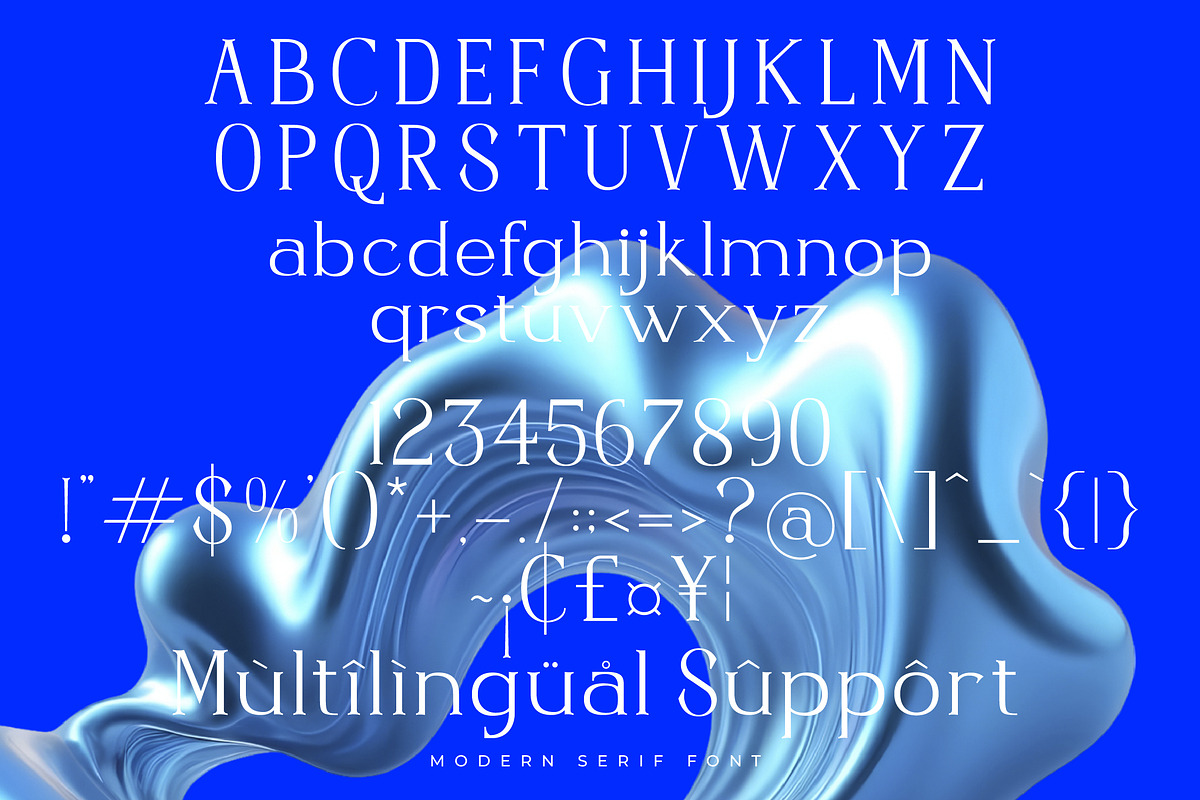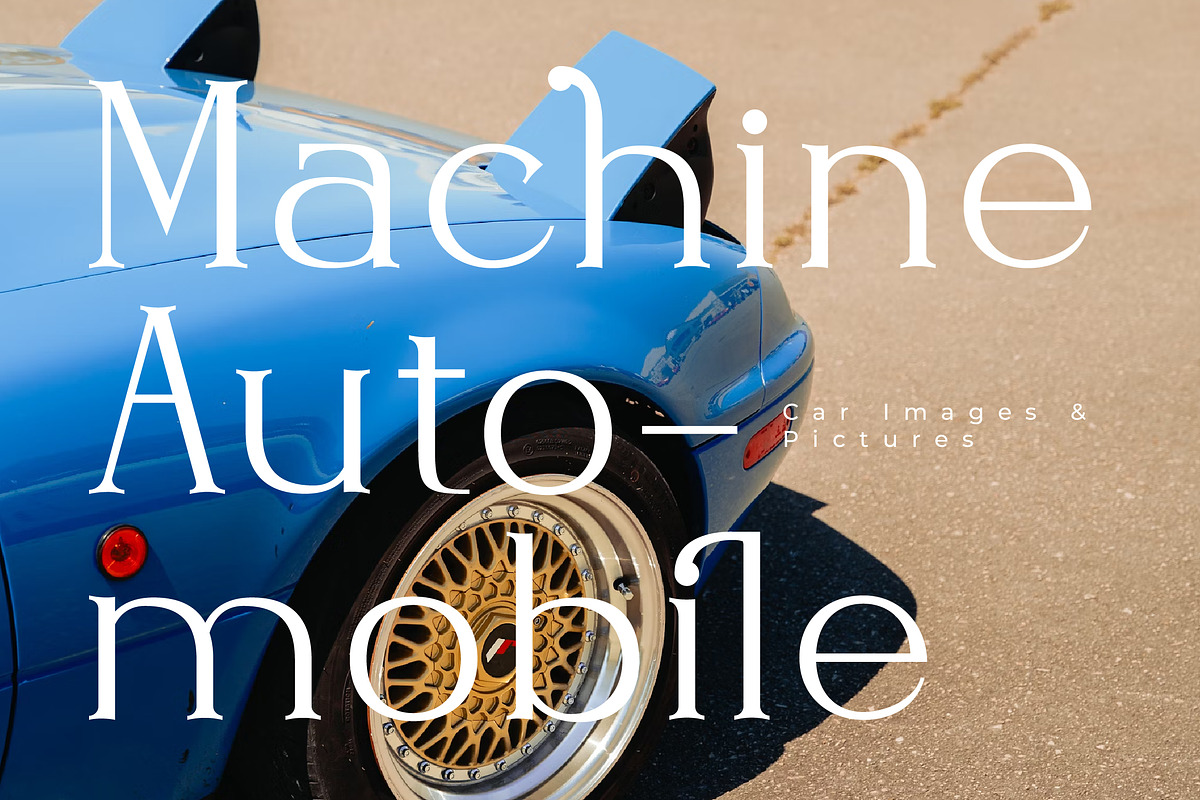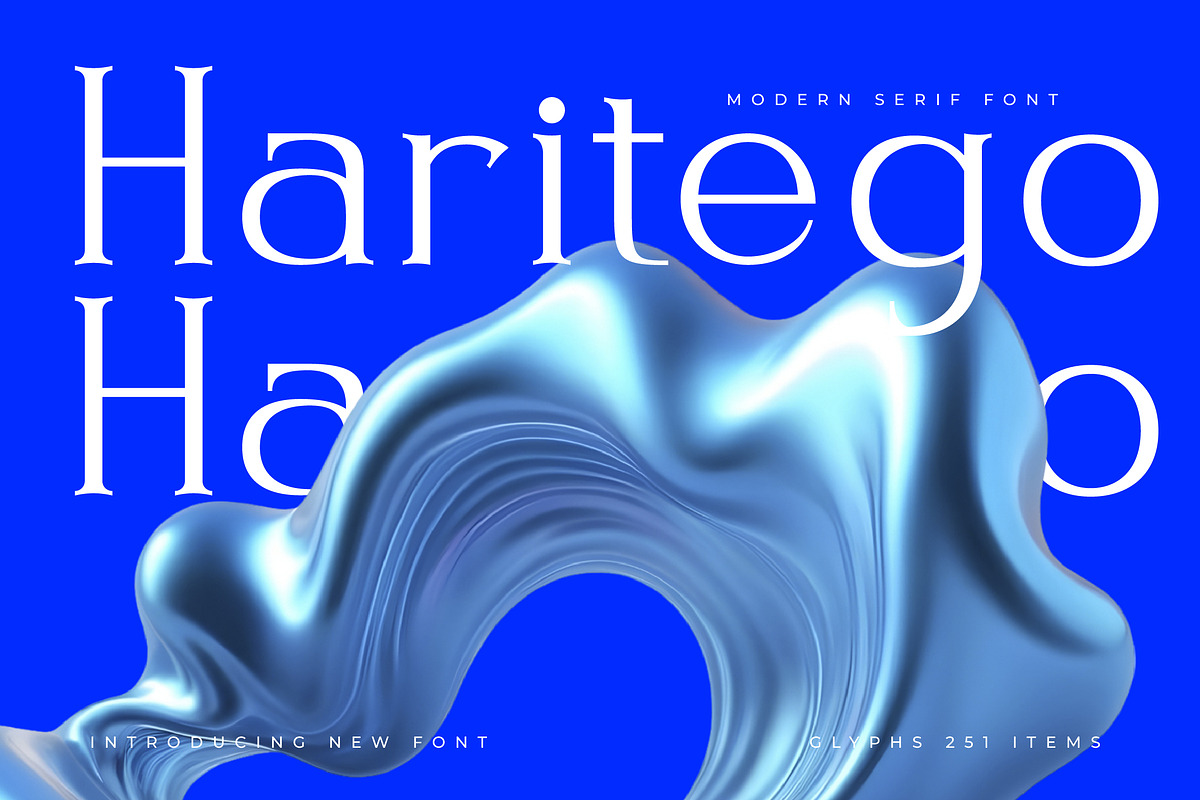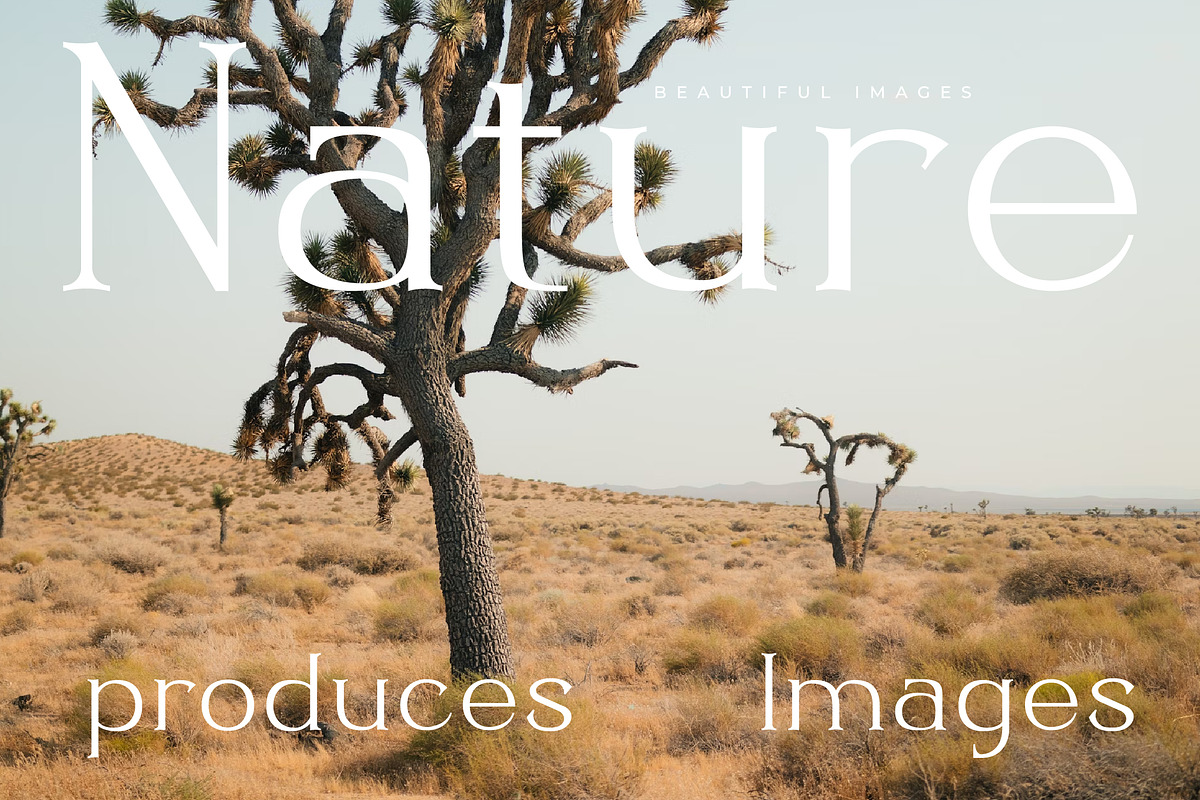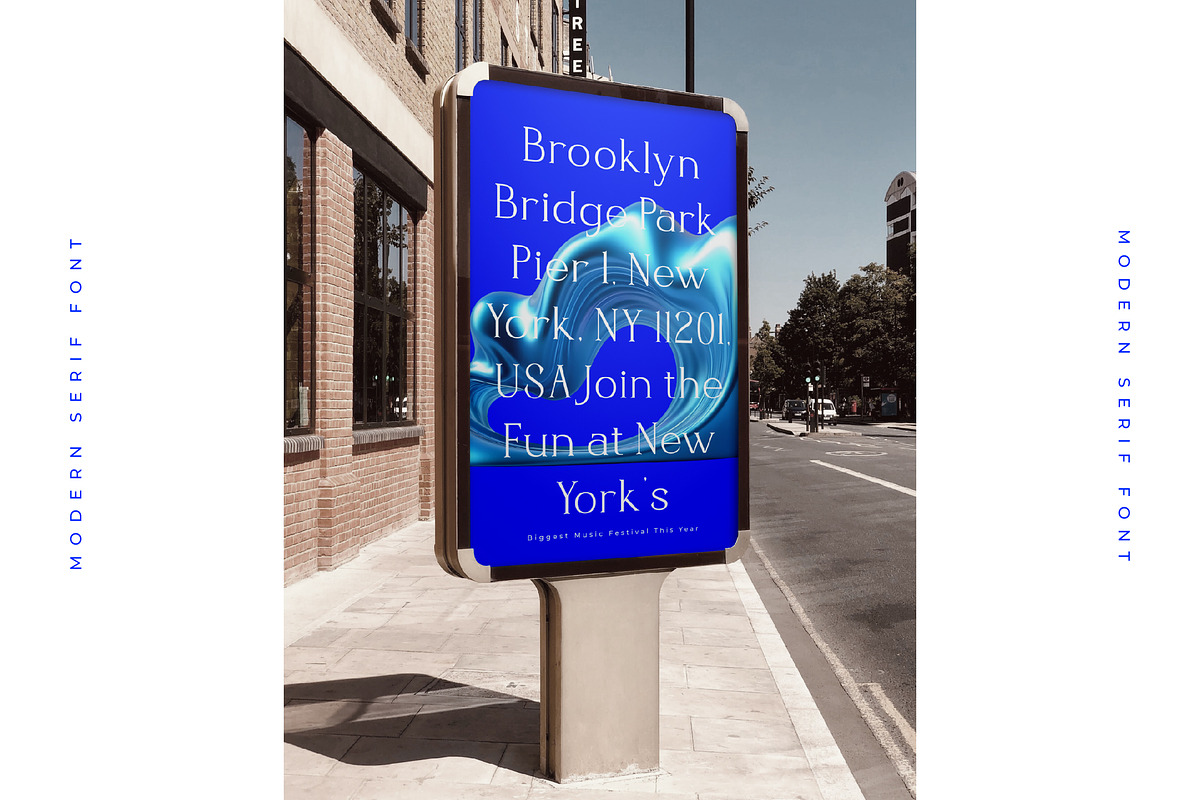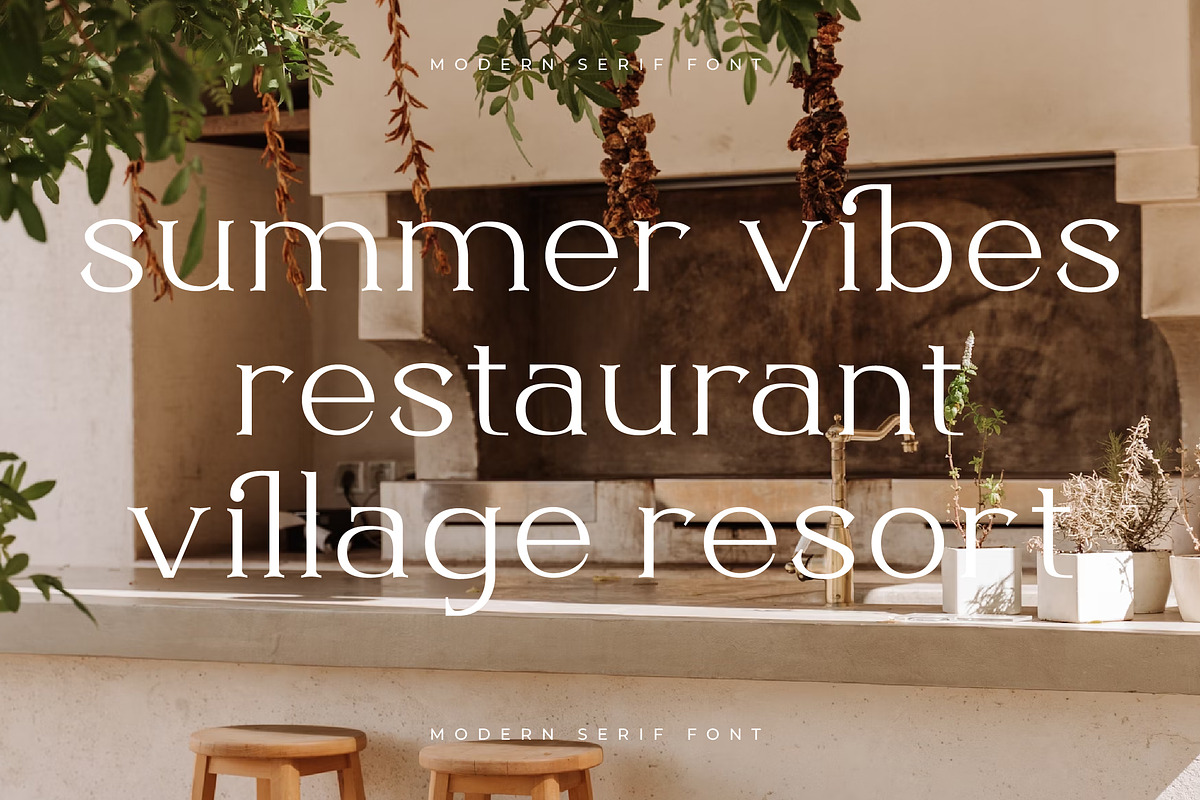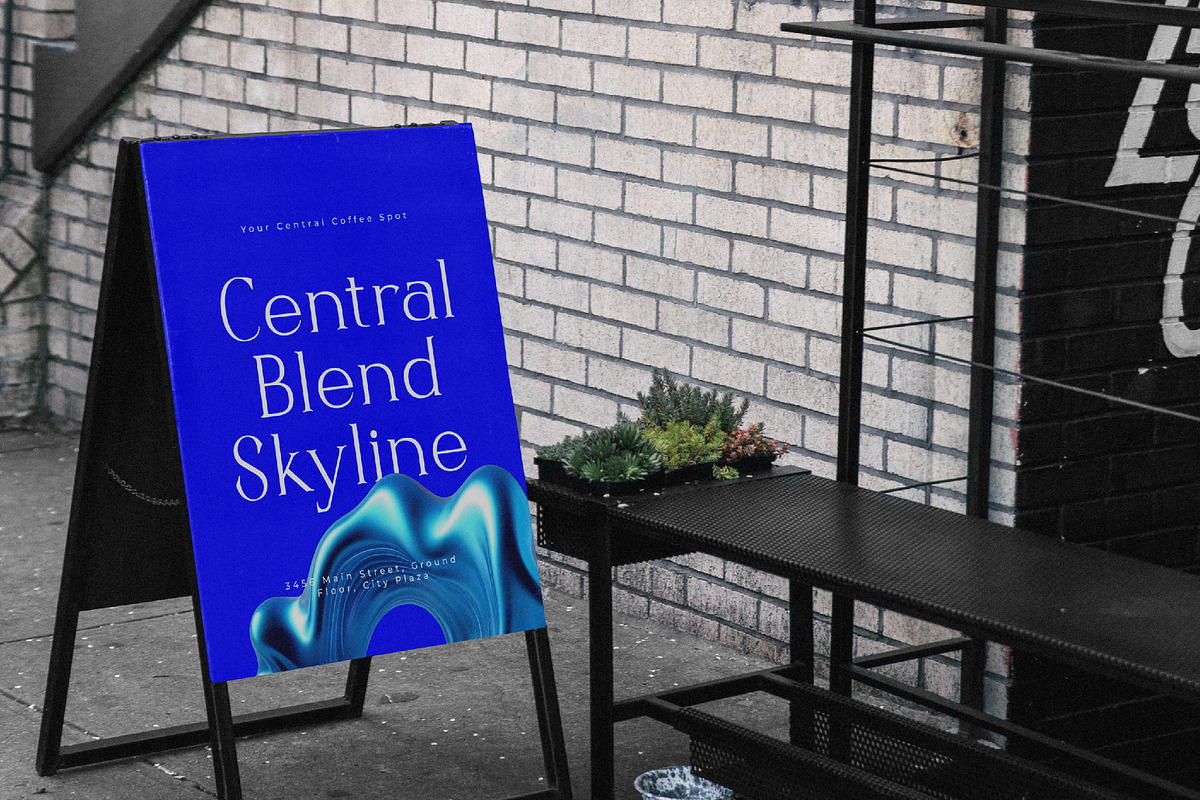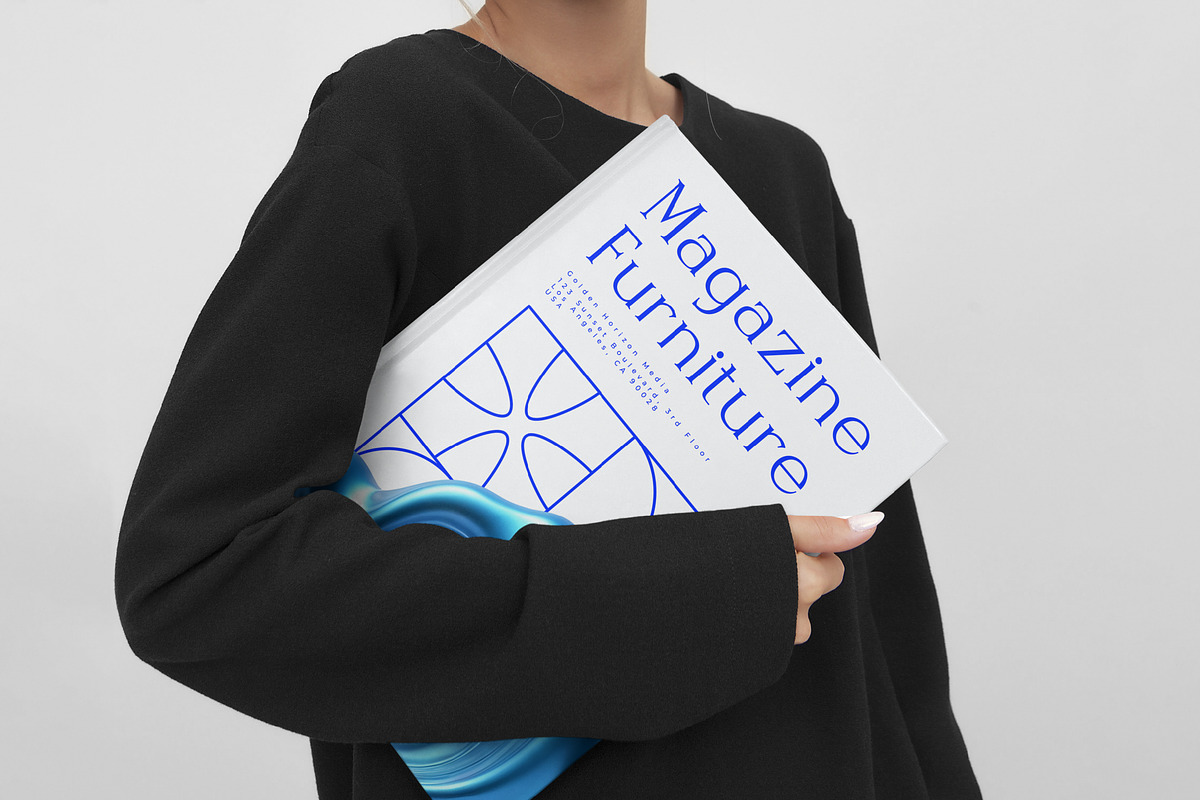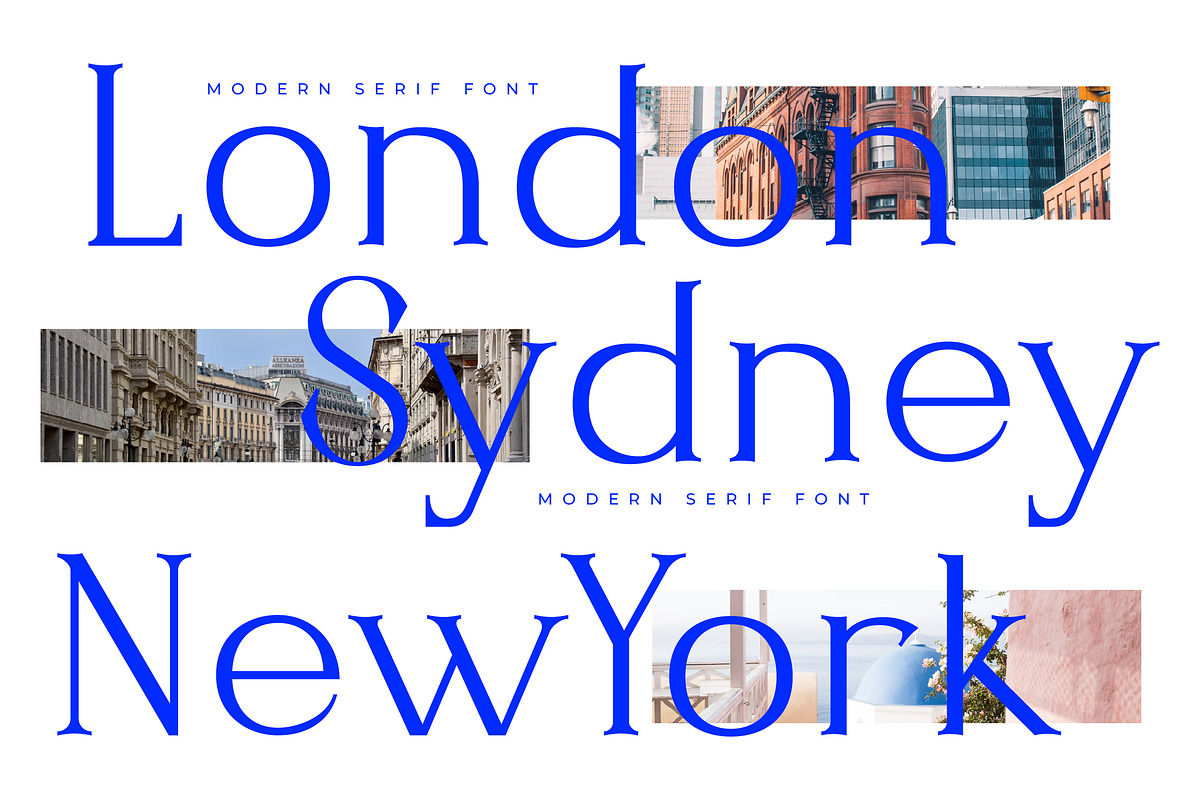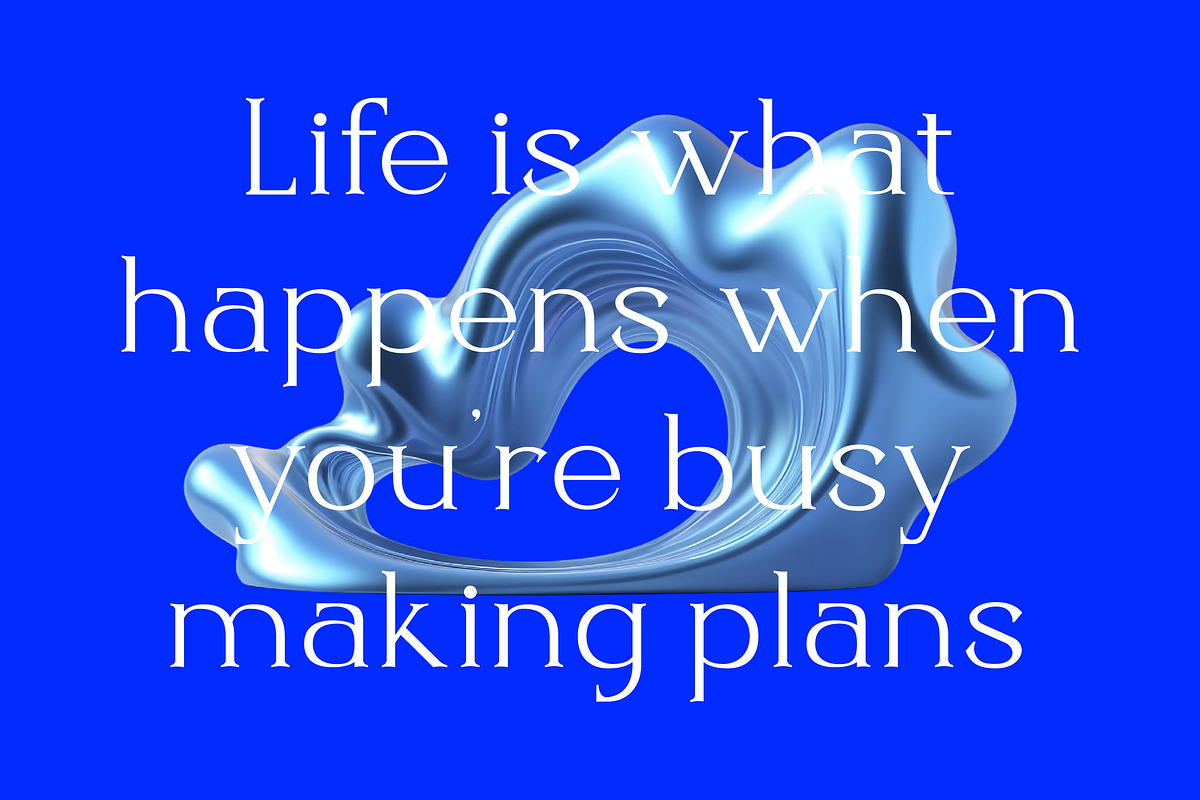
Haritego - Modern Serif
Haritego Modern Serif Font
Haritego Modern Serif Font exudes a refined blend of contemporary elegance and classic sophistication. With its precisely crafted characters, Haritego strikes a harmonious balance between sleek lines and graceful curves, offering a distinctive and luxurious aesthetic.
Perfectly suited for premium branding, high-end editorial work, and elegant invitations, Haritego enhances any project with its timeless charm and modern appeal. Elevate your designs with Haritego, where modern refinement meets enduring elegance.